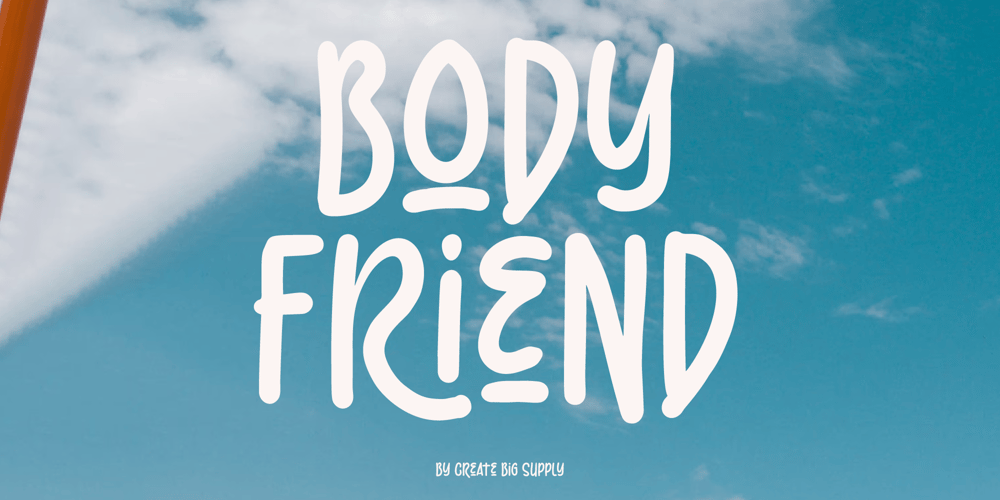
Body Friend Font Family was designed by Irpan Maulana and published by Create Big Supply. Body Friend contains 1 styles and family package options. Body Friend is a cute Display Sans Serif script typeface with a playful look. This type of font is very suitable to be applied especially to logos, and various other formal forms such as invitations, labels, logos, magazines, books, greeting cards, packaging, fashion, make up, stationery, novels, labels, covers or whatever. Features: Uppercase & lowercase Numbers and punctuation Multilingual PUA Encoding Full Character Set!”#$%&()*+,-./:;<=>?@ABCDEFGHIJKLMNOPQRSTUVWXYZ[]^_abcdefghijklmnopqrstuvwxyz{|}~ ¡¢£¤¥§©ª«®°±²³¹º»¿ÀÂÃÄÅÆÇÈÉÊËÌÍÎÏÑÒÓÔÕÖרÙÛÜÝÞßàáâãäåæçèéêëìíîïñòóôõö÷øùúûüýþÿıŒœŠšŸž–—‘’“”†•‹›€−